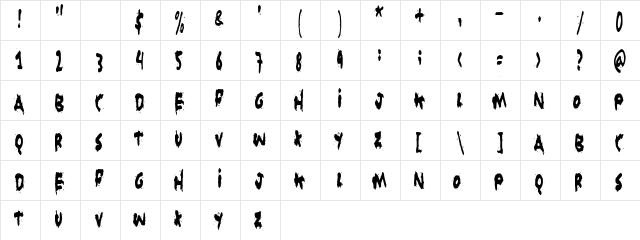
Halloween_Grunt Reaper Regular
Design Context for Halloween_Grunt Reaper Typeface
Halloween_Grunt Reaper is a composed and adaptable typeface that performs quietly and consistently across a wide range of design contexts.